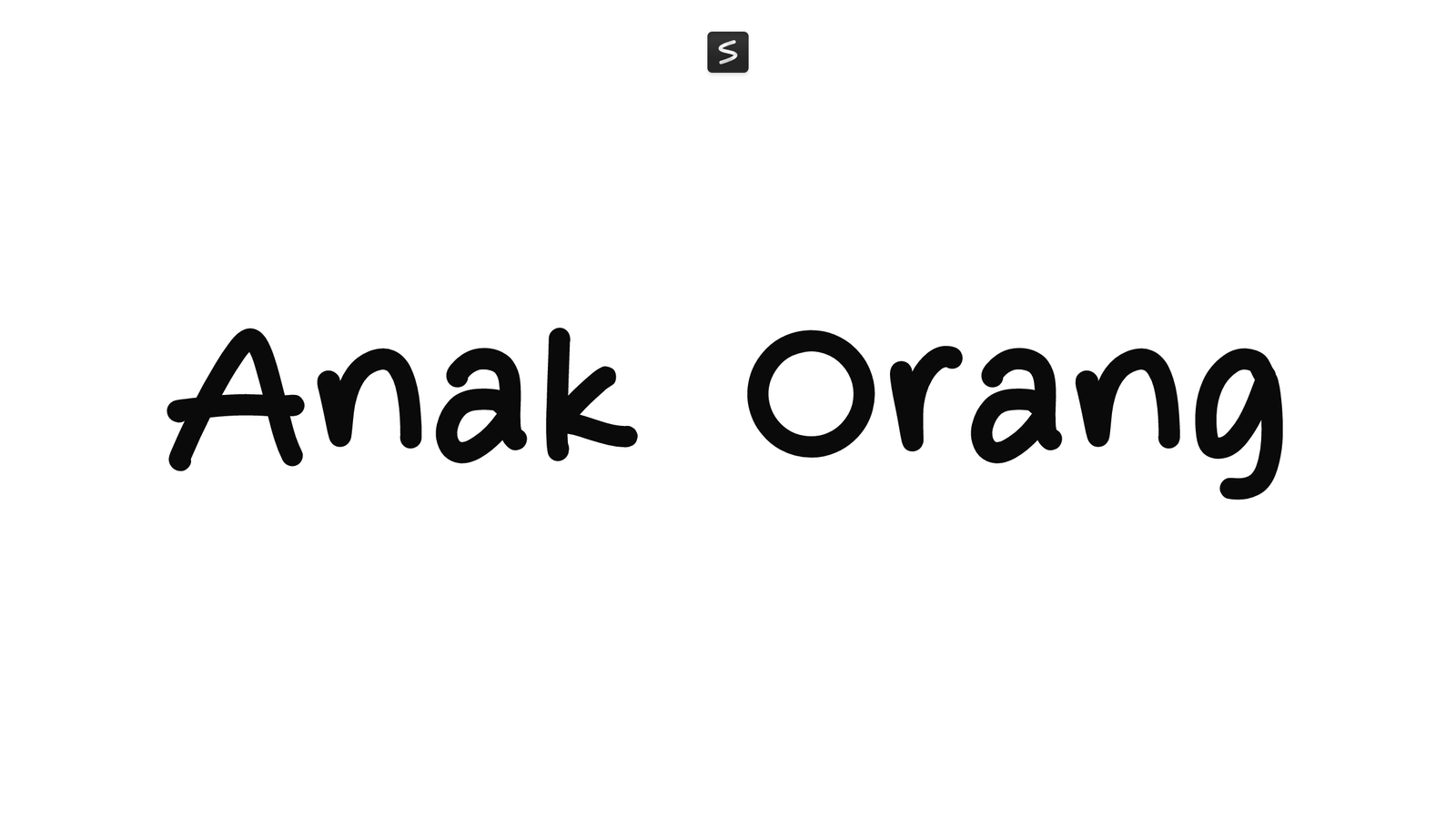
Anak Orang is a casual handwriting font by Khurasan™ with rounded, informal letterforms that feel personal and approachable. The varied baseline and organic stroke widths give it an authentically sketched quality, as though written quickly by hand rather than constructed with precision.
This font works well for friendly, youthful design contexts where a human touch matters. Use it for social media graphics, greeting cards, informal posters, branding for small creative businesses, or any project that needs warmth and approachability without formality. Its casual nature makes it a natural fit for designs that value personality over polish.